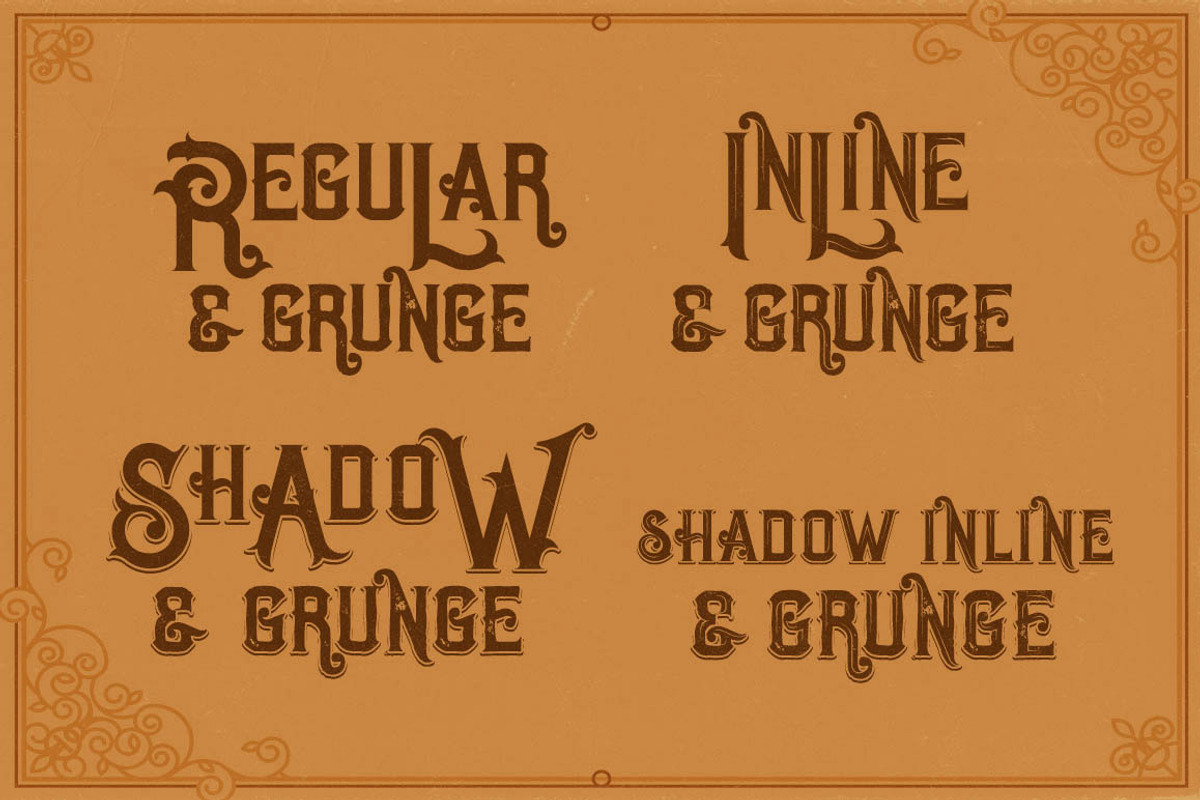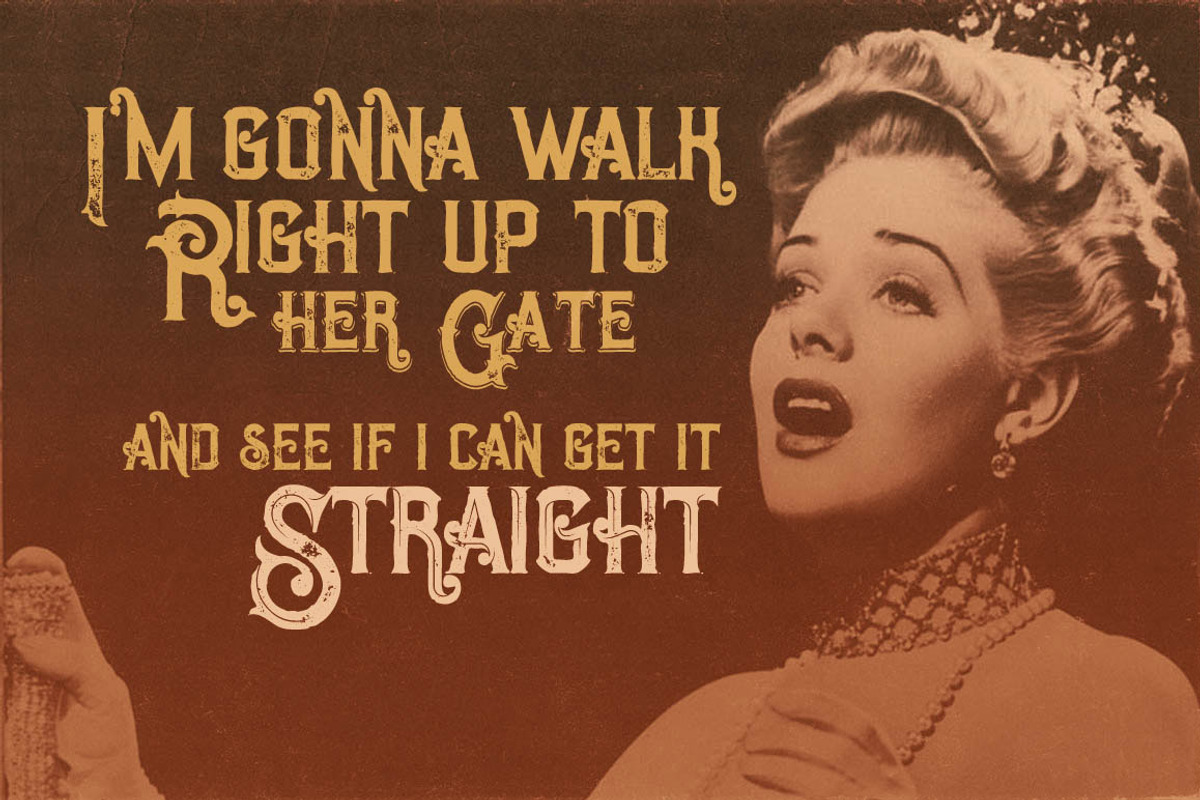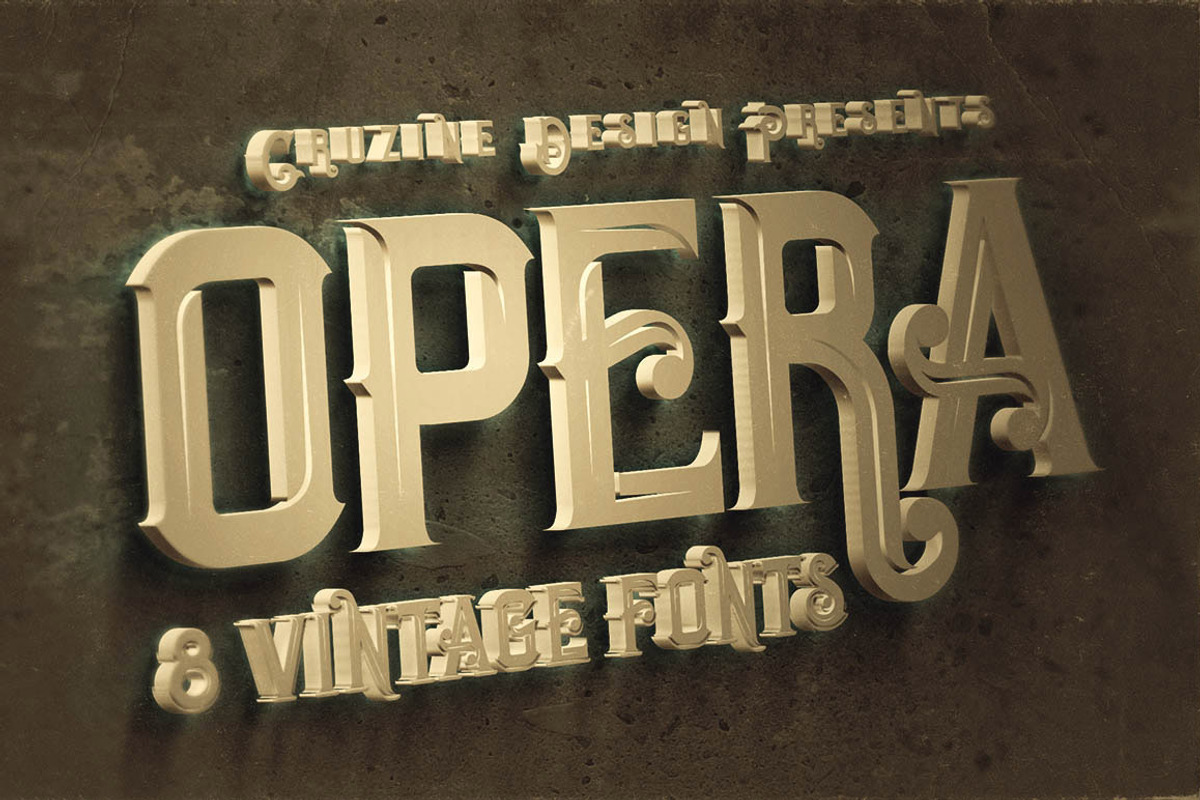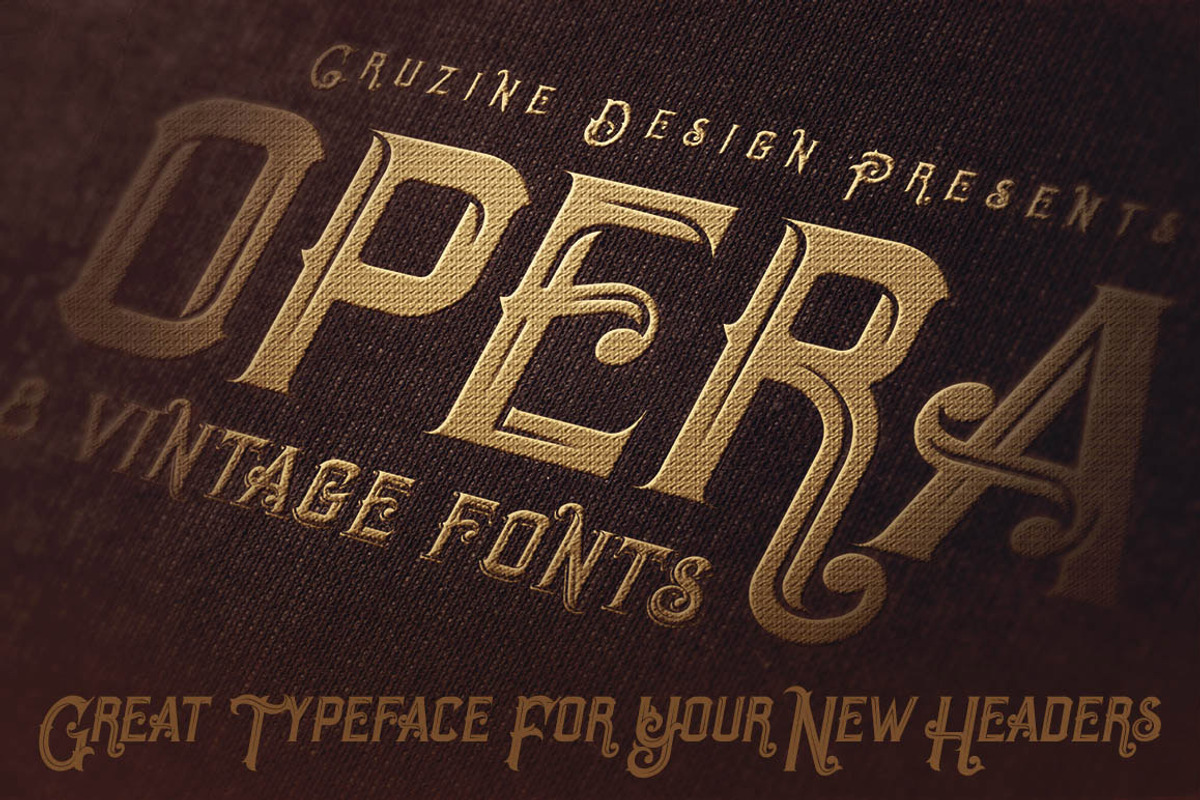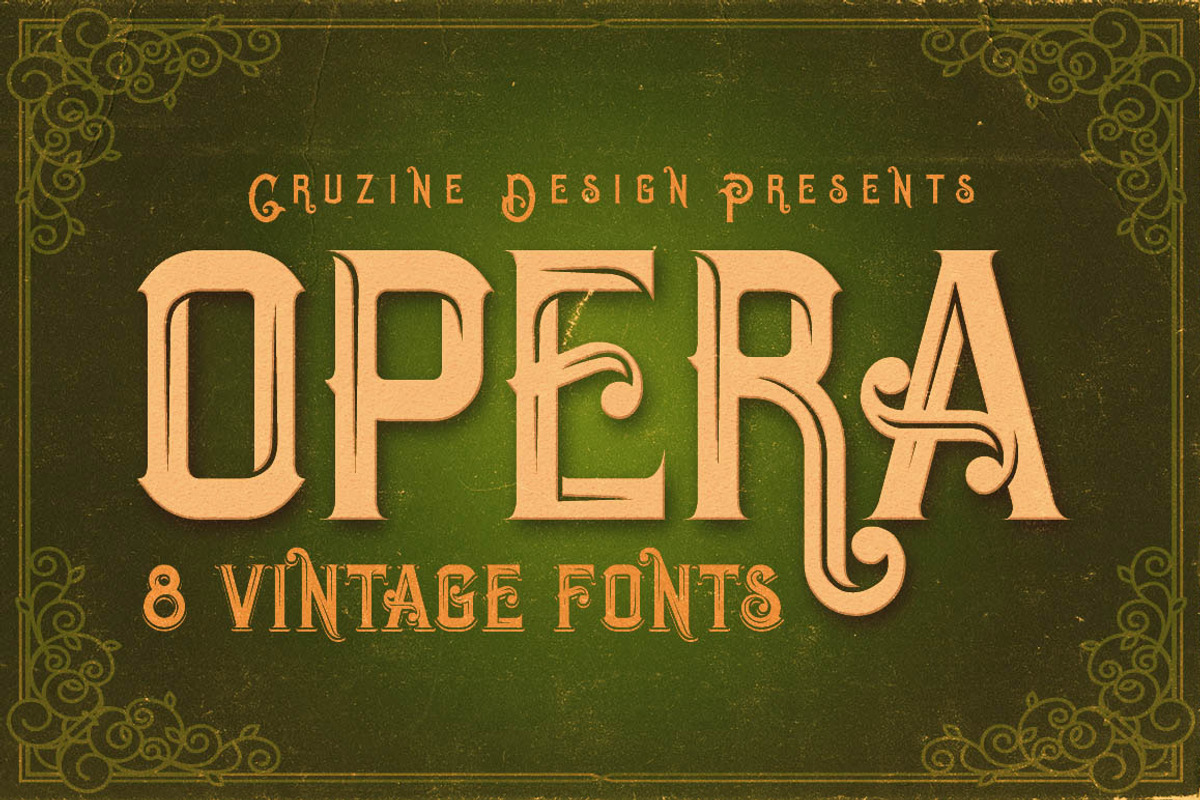
Opera Vintage Typeface
Opera Vintage Typeface by Cruzine is a font selected for branding, posters, packaging, typography.
Why Opera Vintage Typeface is worth a look
Opera Vintage Typeface by Cruzine fits naturally into Branding, posters, packaging, typography.